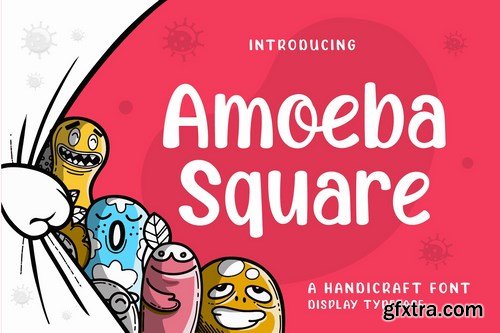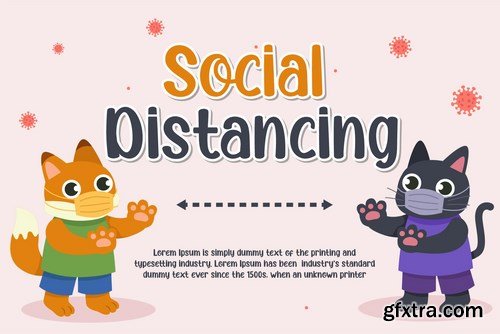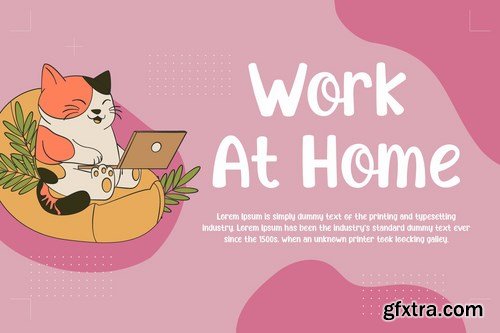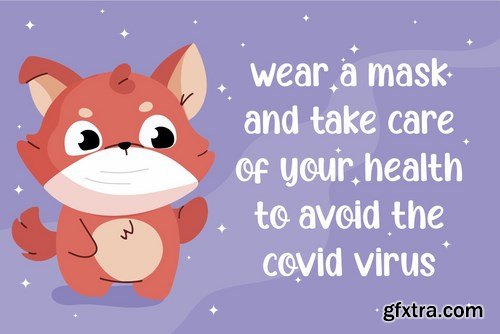
**Amoeba Square is a display font. **This font can be used for products such as health education, hospitals, handicrafts, funny quotes, product packaging, quotes, product designs, craftsmen, labels, photography, watermarks, logos & branding. Everything can be accessed using software that supports Opentype, such as Adobe Indesign, Adobe CS Illustrator, Adobe Photoshop CC, and Corel Draw.